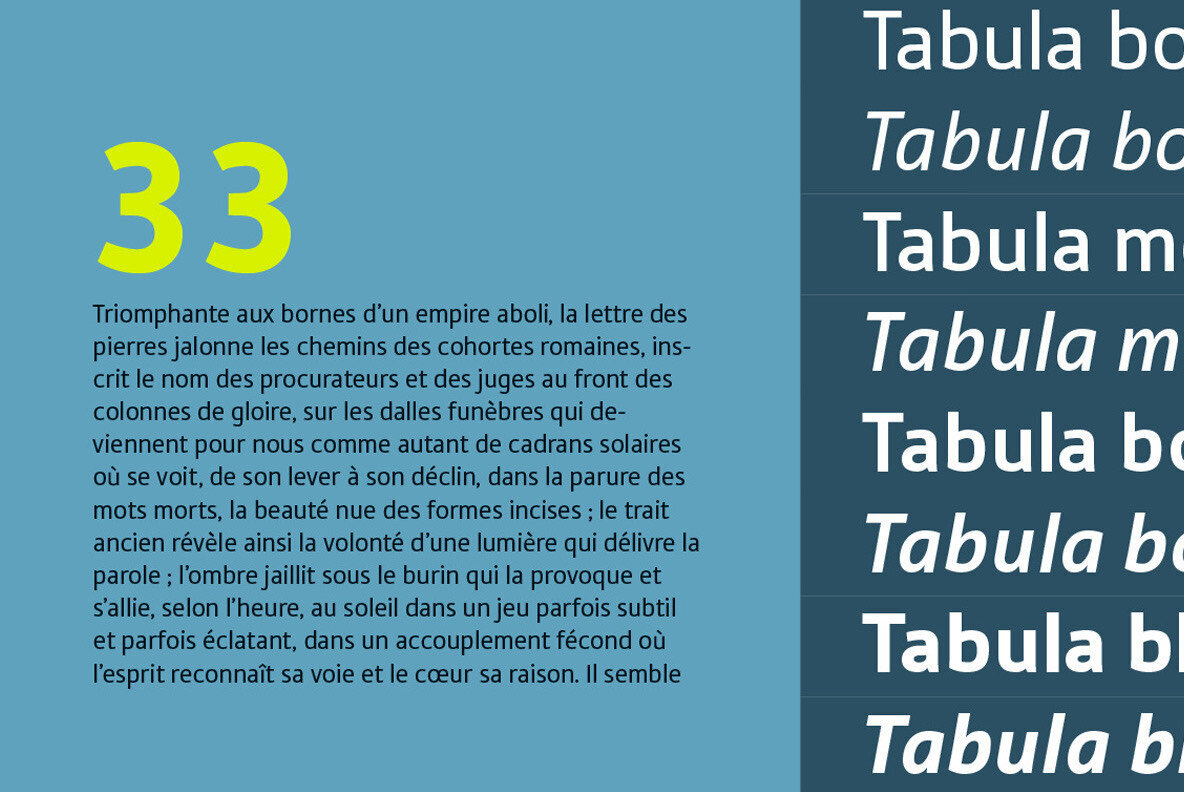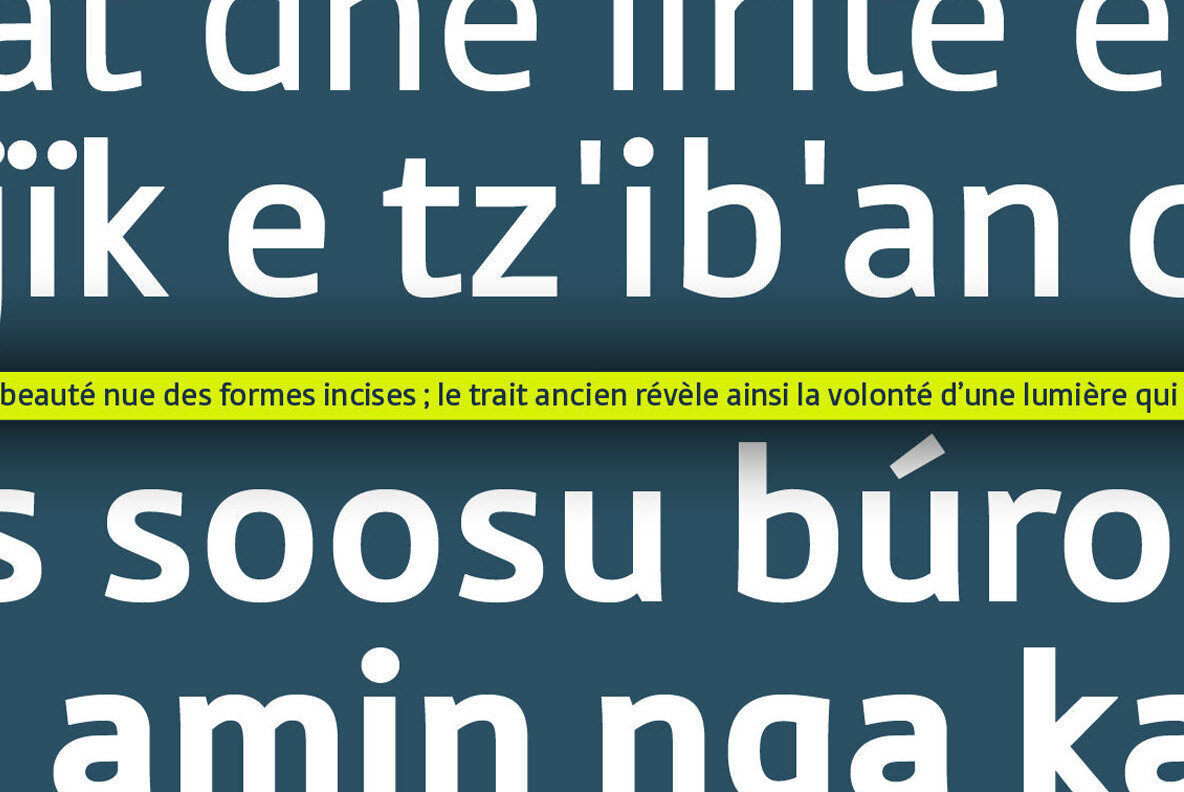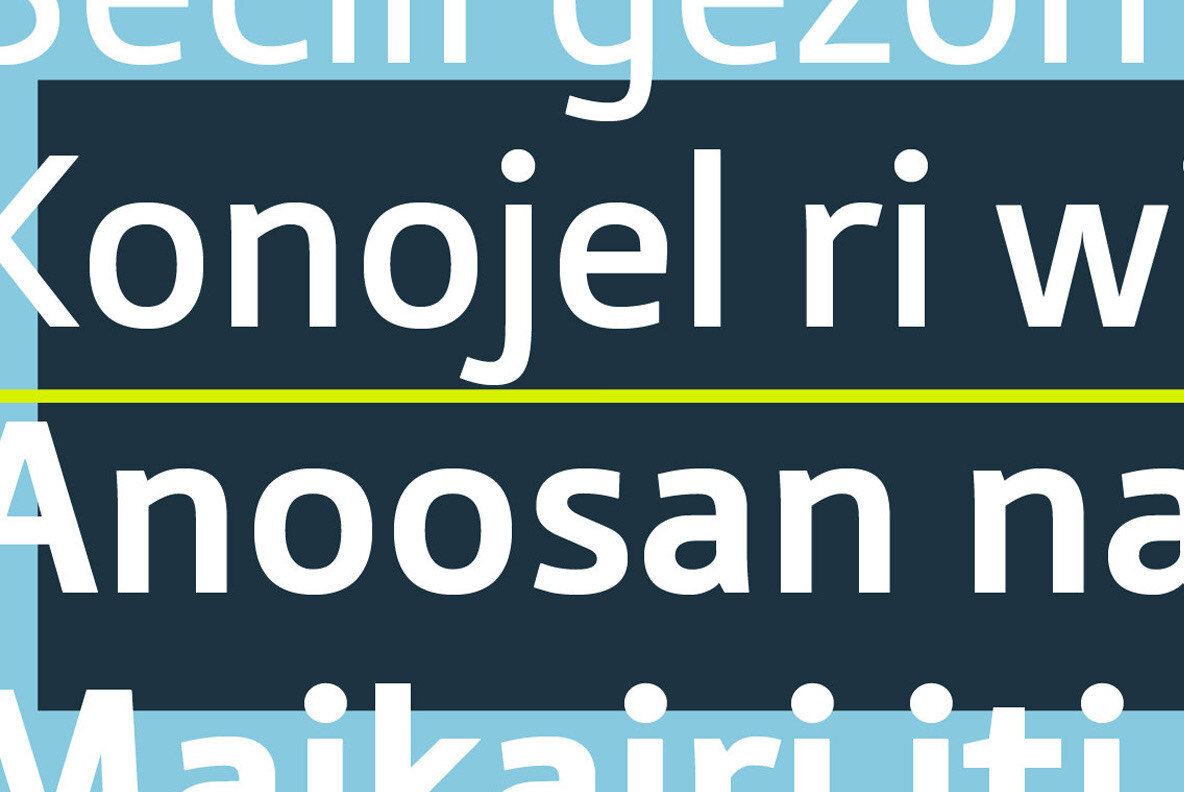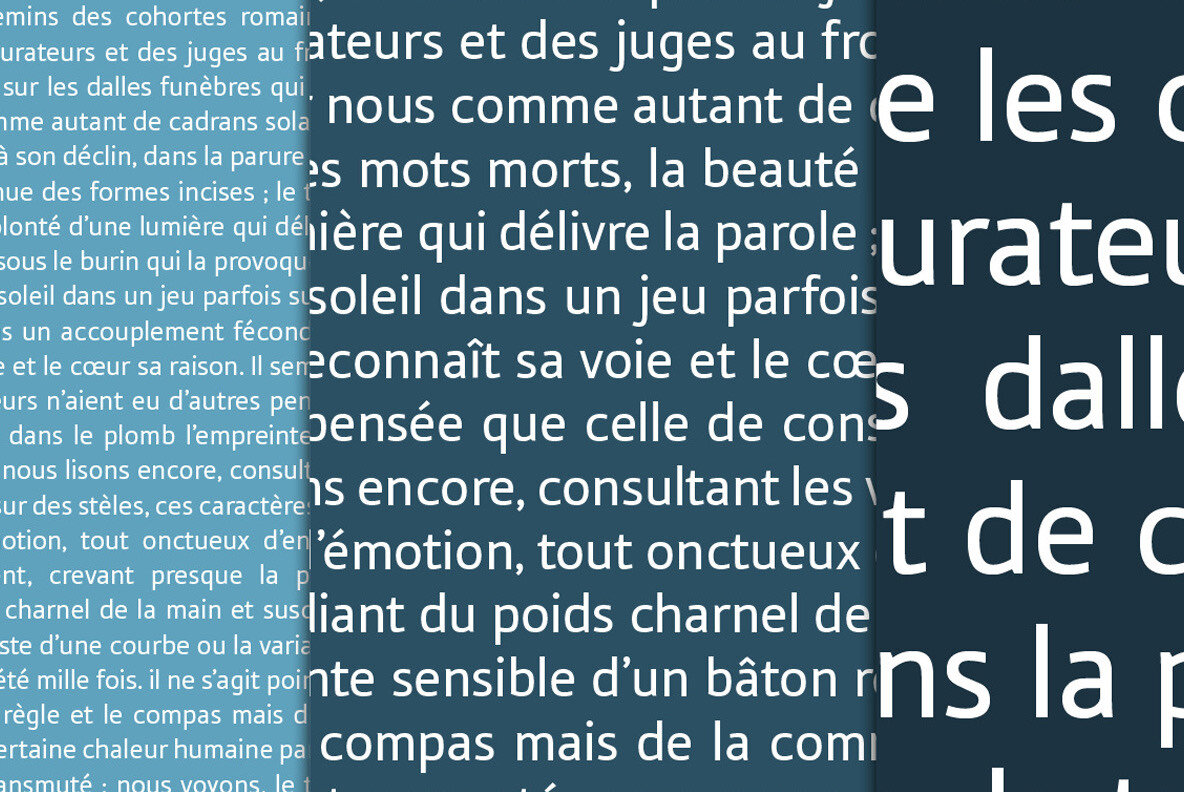
Tabula Font
Tabula emerges from a subtitle font project that was meticulously developed yet never unveiled to the public. This versatile font family seamlessly transitions between small editorial texts and commanding signage titles.
Designed as a sensitive sans-serif, Tabula transcends mere geometric constraints, incorporating a delicate calligraphic foundation that enhances its readability. Its nuanced design ensures legibility across various contexts, making it an ideal choice for a wide range of applications.